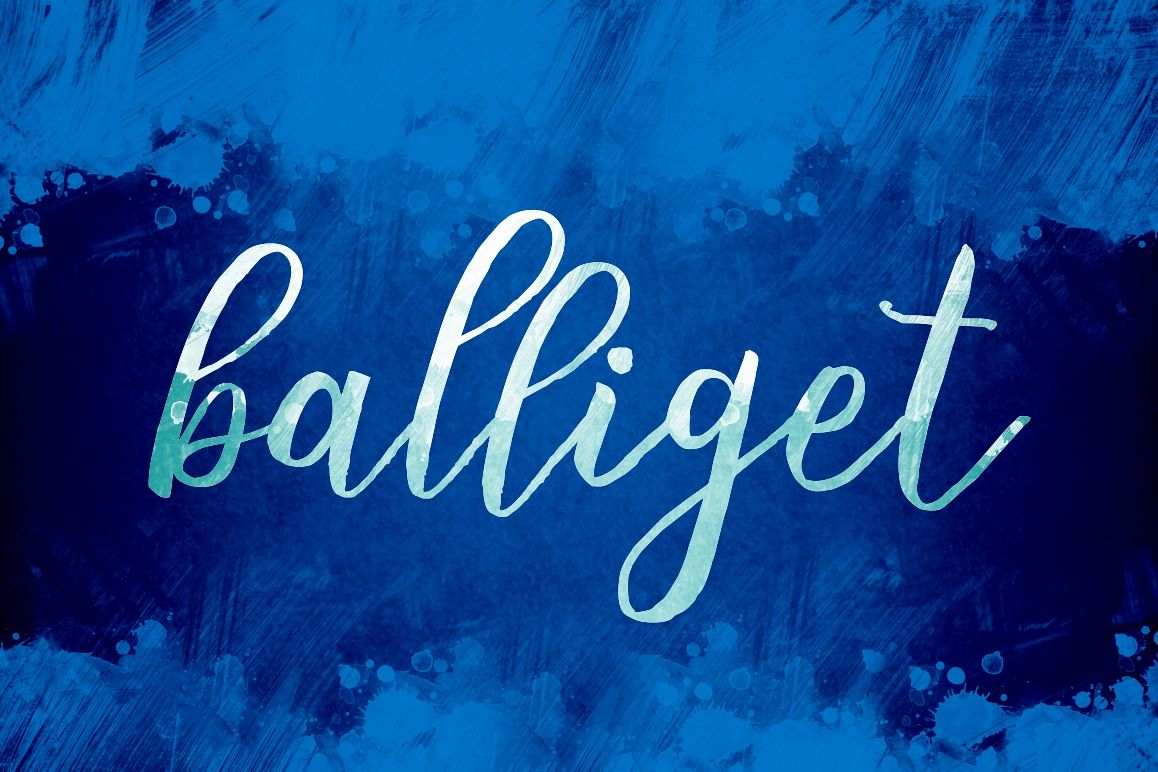
Balliget
is a handmade brushscript. contemporary approach to design handpainted with natural look. Suitable for use in watercolor design or as a hand brushed lettering. Such as Invitations, Books tittle, Stationery Design, Branding, Logos, Wedding and Greeting Card, T-shirt, Packaging design, Poster etc.
Stylistic Alternates
Ligatures
Numeral
Punctuation